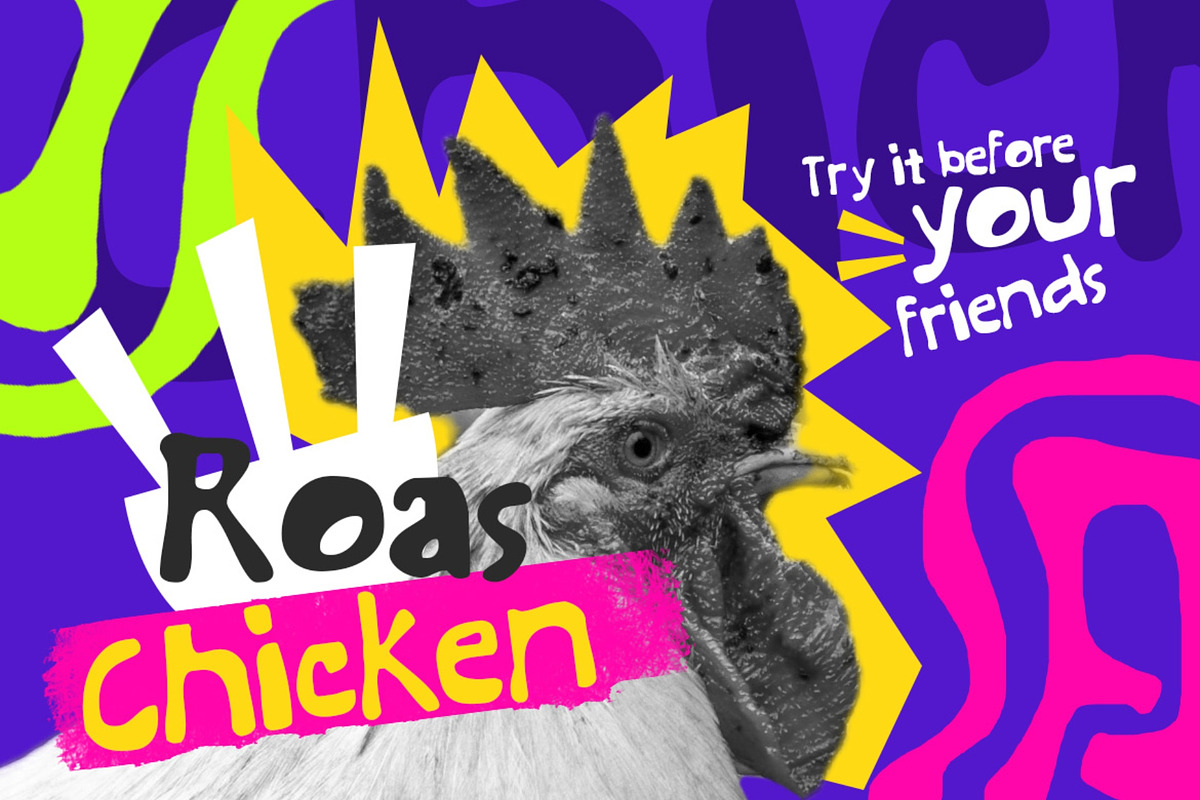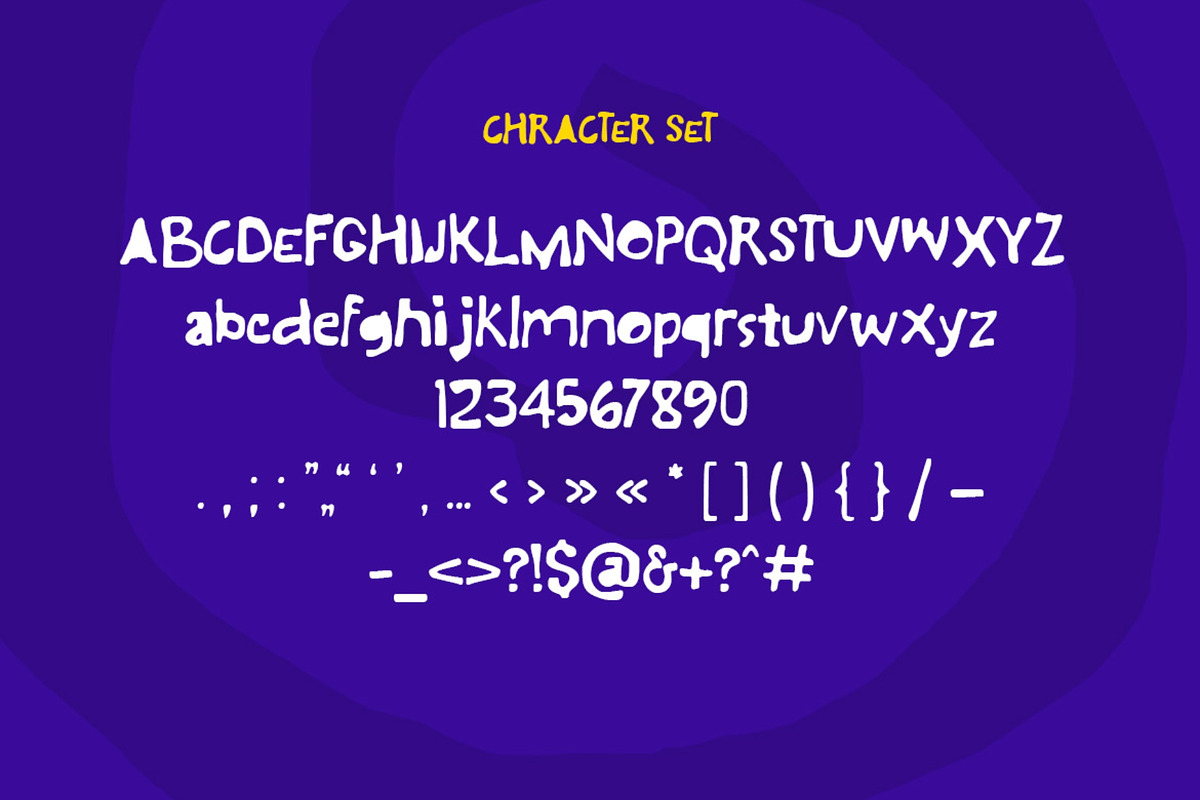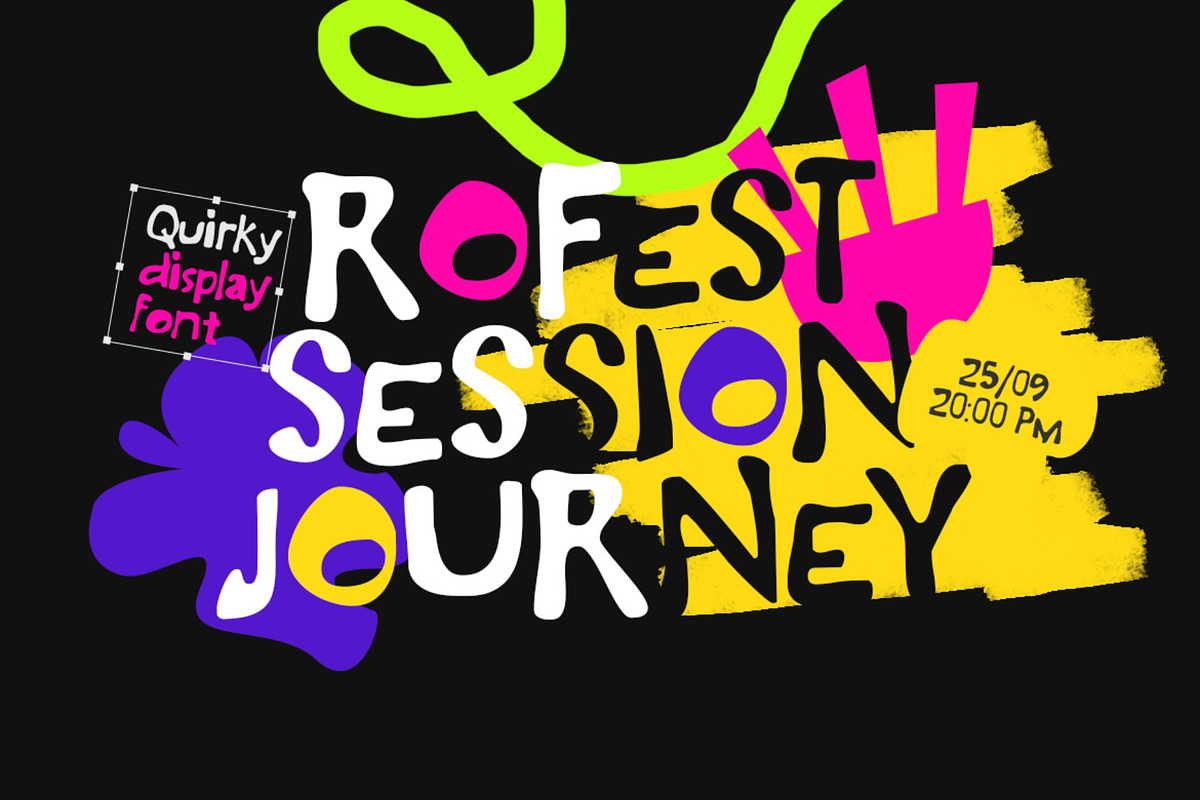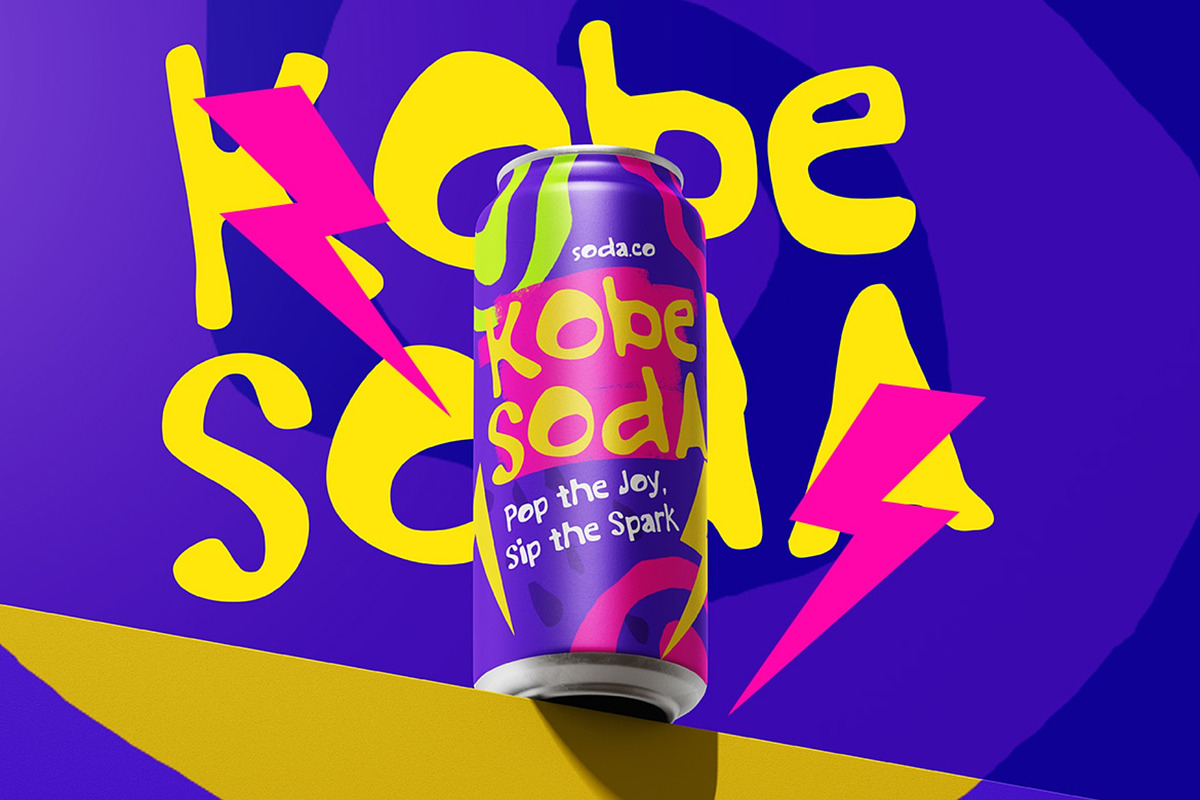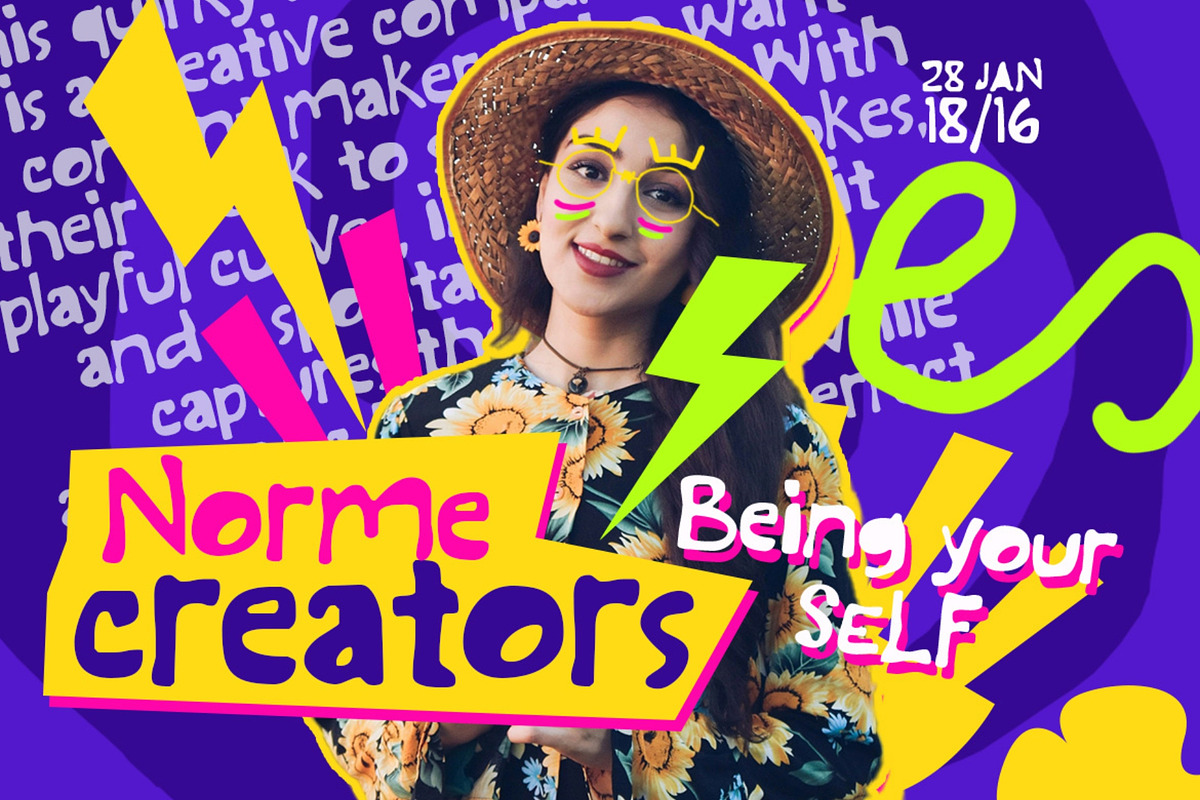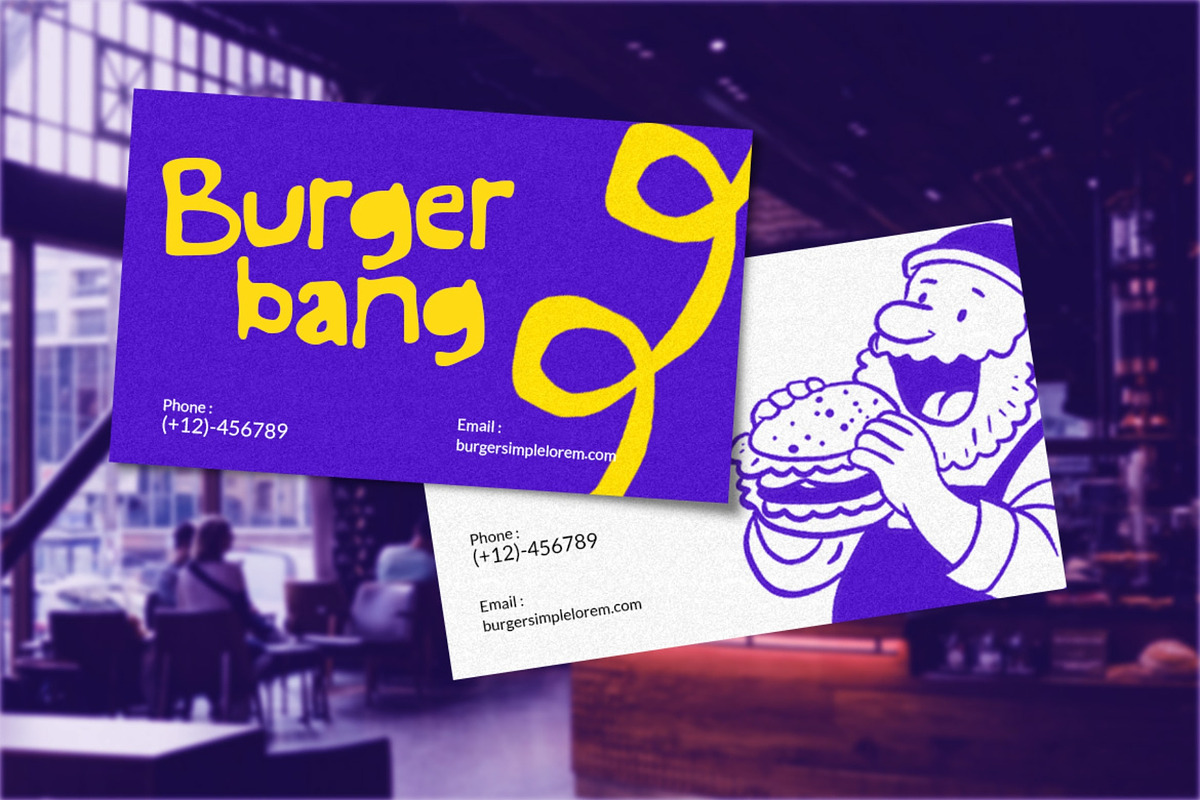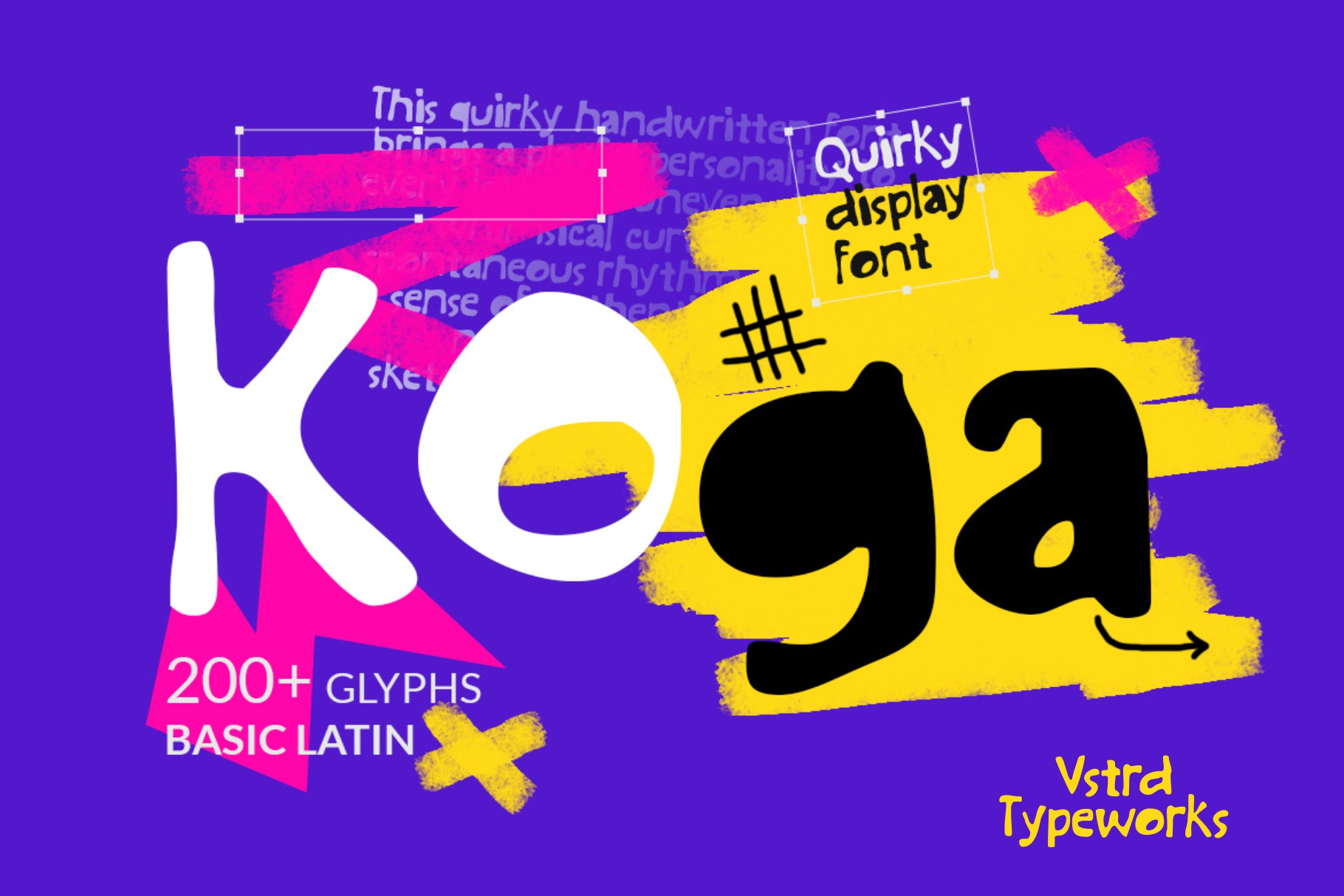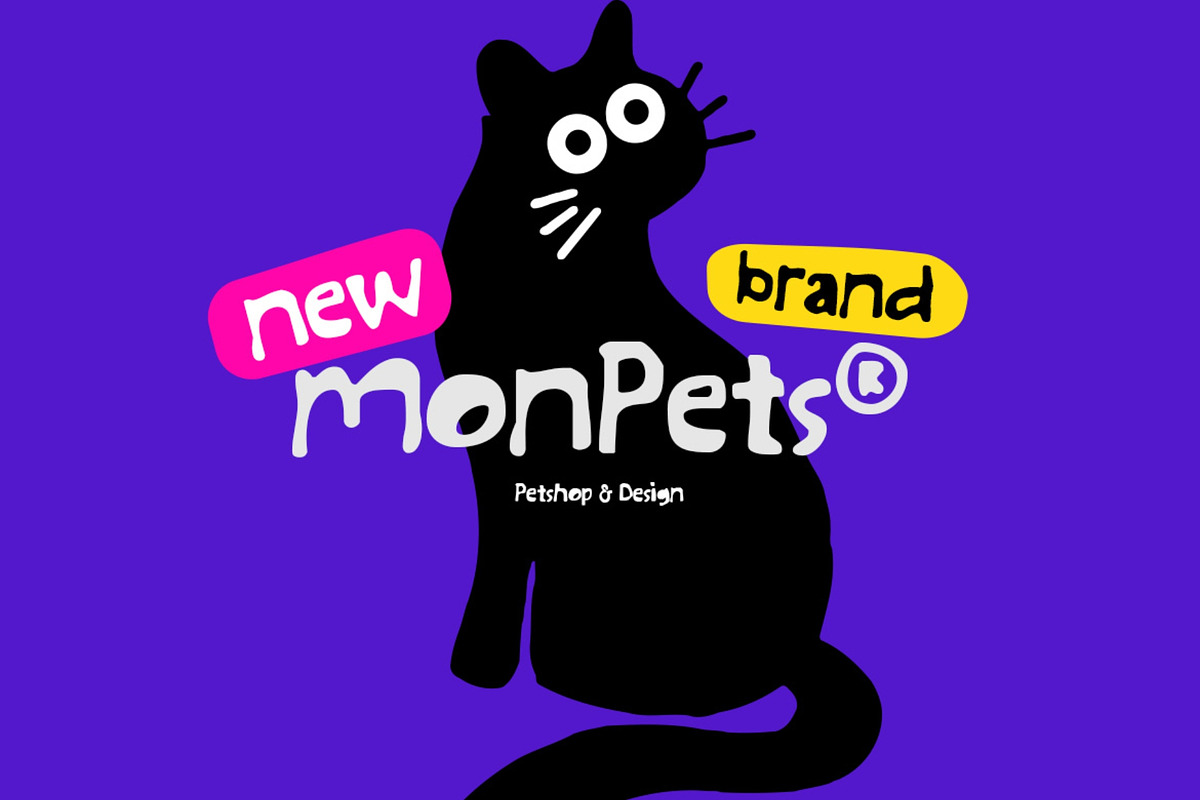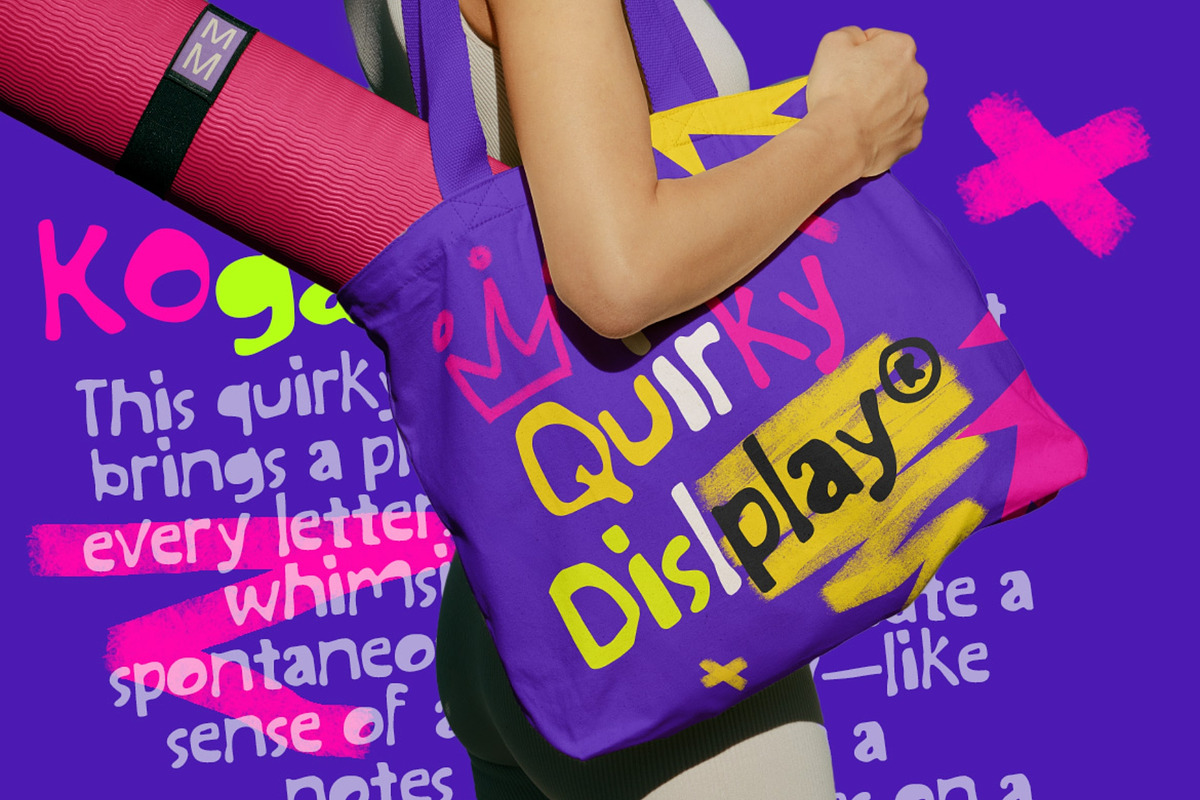
Koga - Quirky Display Font
Koga is a loud, playful display font packed with personality. With bold shapes, spontaneous curves, and expressive letterforms, it’s made to grab attention and never blend in. Perfect for posters, street-style branding, food packaging, social media graphics, and creative headlines that demand impact. Fun, Funky, Fearless, Koga turns every word into a statement.
- All Caps Uppercase & Lowercase